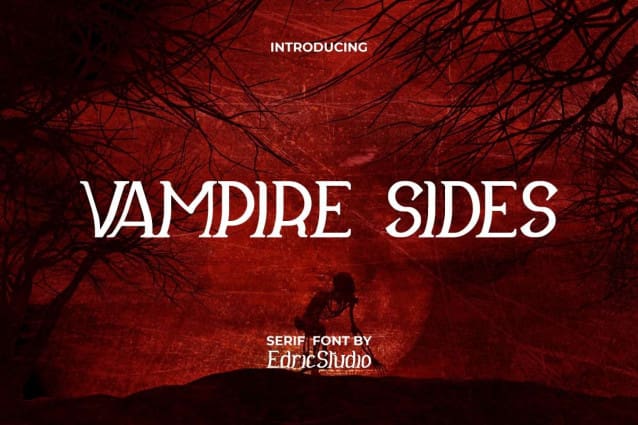
Vampire Sides Font
Vampire Sides Font is a spooky fun serif display font created by EdricStudio. This font has an interesting style for each character, besides the edged serif feature, it also curves slightly to the right, giving it a different look. Use this font for all industries, including: antique furniture, architect, author, barber, café, event organizer, fashion, film, handicrafts, movie, music, printing, publishing, etc.
Vampire Sides Font comes with a full set of Uppercase and Lowercase Basic Characters, Number, large range of Punctuation and Symbol. It has a stunning characters set, perfectly managed with well spaced and kerning. Vampire Sides Font will be great for any projects (with extended license) including: billboard, brand logo, business card, cover, flyer, frame art, header, label, magazine, packaging design, stationery, title, website, and will have the potential to take your every creative idea to the highest level!